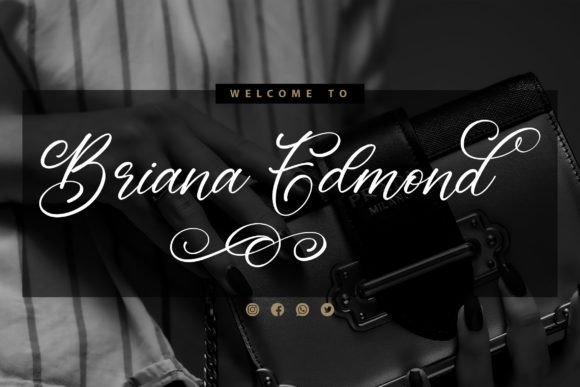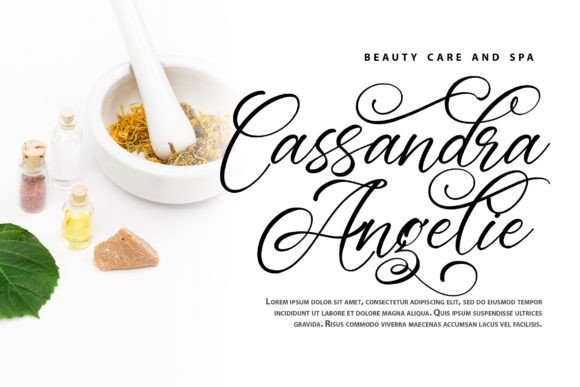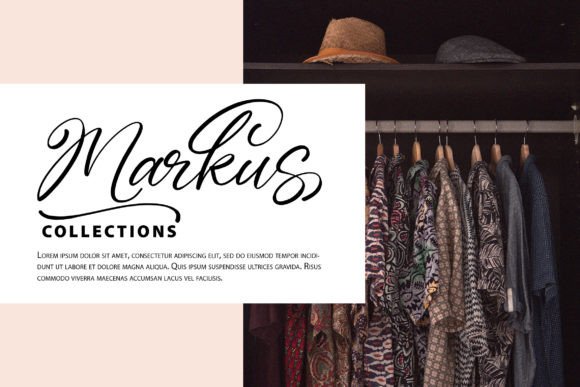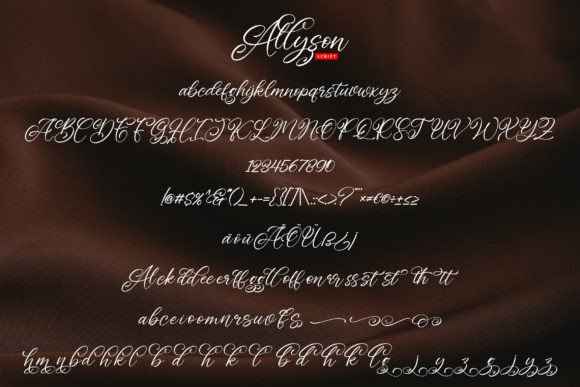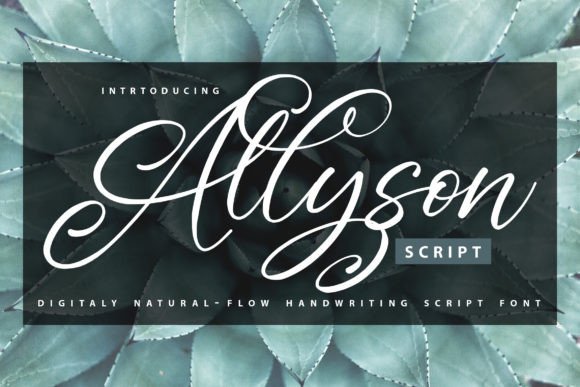
Introducing Allyson Font: Elevate Your Designs with Elegance and Sophistication
In the world of typography, fonts play a crucial role in conveying the message and aesthetic of a design. Among the numerous fonts available, Allyson Font stands out as a dazzling script font that can add a touch of elegance and sophistication to any creation. In this article, we’ll explore the features, benefits, and uses of Allyson Font, making it a must-have for designers and crafters.
What Makes Allyson Font Special?
Allyson Font is a beautifully crafted script font, characterized by its neat and highly detailed design. Its elegant strokes and curves make it perfect for a wide range of design projects, from wedding invitations and branding materials to digital content and craft projects. The font’s versatility allows it to adapt to various topics and themes, ensuring that it will become a valuable asset to your font library.
Key Features of Allyson Font
- PUA Encoding: Allyson Font is PUA (Private Use Area) encoded, which means that you can easily access all glyphs and swashes. This feature provides flexibility and convenience, allowing you to experiment with different design elements without any hassle.
- Highly Detailed: The font’s intricate design ensures that it looks stunning in both digital and print formats. Its high level of detail makes it suitable for large and small design projects alike.
- Elegant and Sophisticated: Allyson Font exudes elegance and sophistication, making it perfect for designs that require a touch of luxury and refinement.
Benefits of Using Allyson Font
Adding Allyson Font to your font library can bring numerous benefits to your design work. Some of the advantages of using this font include:
- Enhanced Visual Appeal: Allyson Font’s elegant design can instantly elevate the visual appeal of your creations, making them more engaging and attention-grabbing.
- Versatility: The font’s versatility allows it to be used in various design projects, from digital content to print materials.
- Time-Saving: With PUA encoding, you can quickly access all glyphs and swashes, saving you time and effort in the design process.
Use Cases for Allyson Font
Allyson Font is suitable for a wide range of design projects, including:
- Wedding Invitations: The font’s elegant design makes it perfect for wedding invitations, ceremony programs, and other wedding-related materials.
- Branding Materials: Allyson Font can add a touch of sophistication to your brand’s visual identity, making it ideal for logos, business cards, and letterheads.
- Digital Content: The font’s digital-friendly design ensures that it looks great in digital formats, making it suitable for blog posts, social media graphics, and email newsletters.
- Craft Projects: Allyson Font can add a personal touch to your craft projects, such as handmade cards, scrapbooking, and DIY decorations.
In conclusion, Allyson Font is a stunning script font that can elevate your designs with its elegance and sophistication. Its PUA encoding, highly detailed design, and versatility make it a valuable asset to any designer’s font library. Whether you’re working on wedding invitations, branding materials, digital content, or craft projects, Allyson Font is sure to become a go-to choice. With its ability to enhance visual appeal, save time, and adapt to various design themes, Allyson Font is an excellent addition to your typography collection.